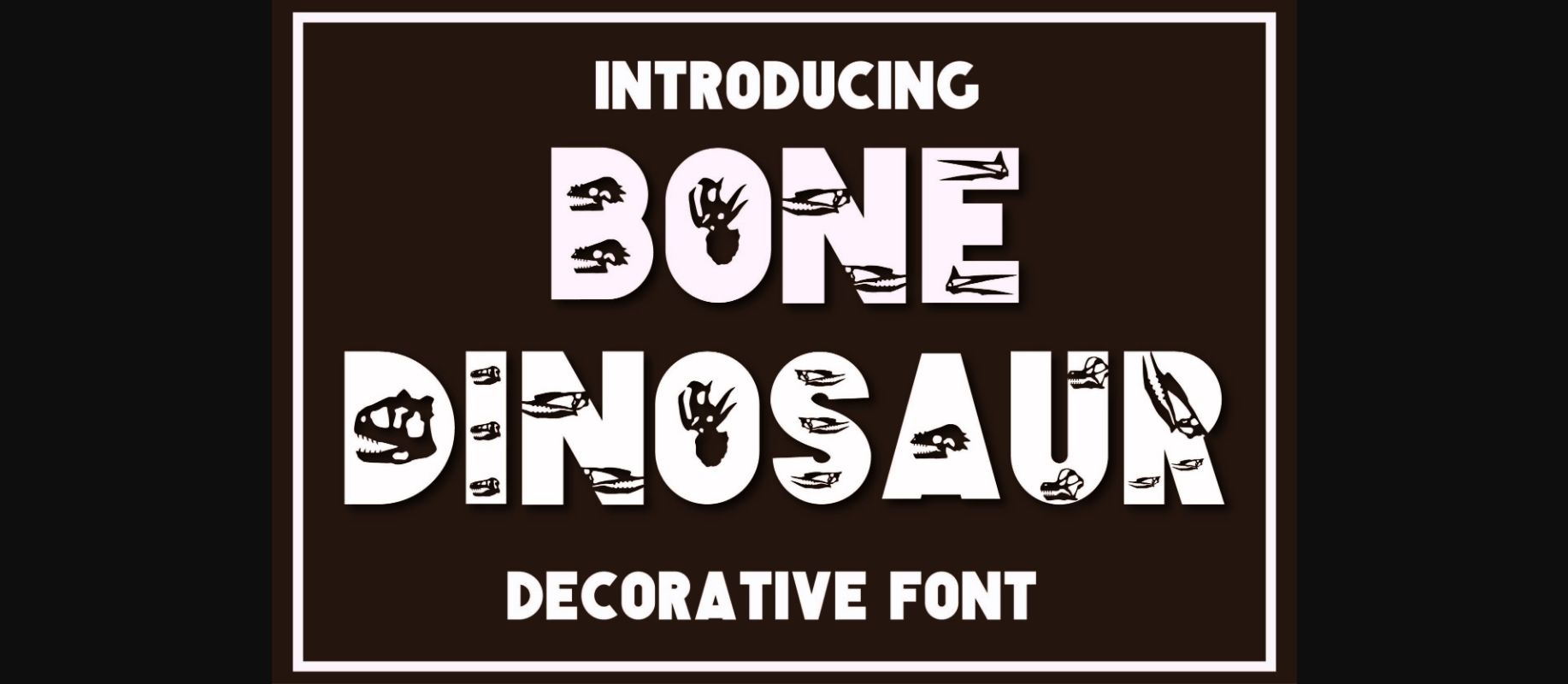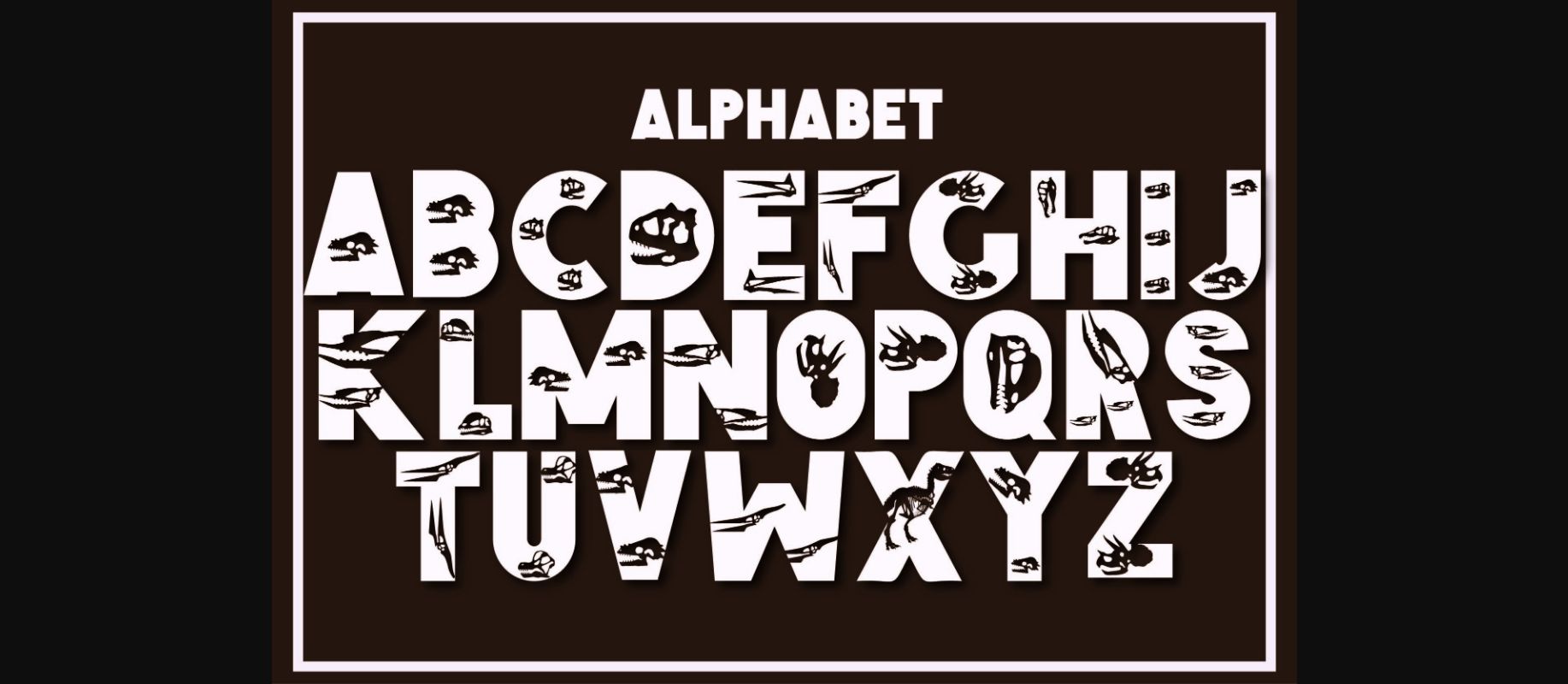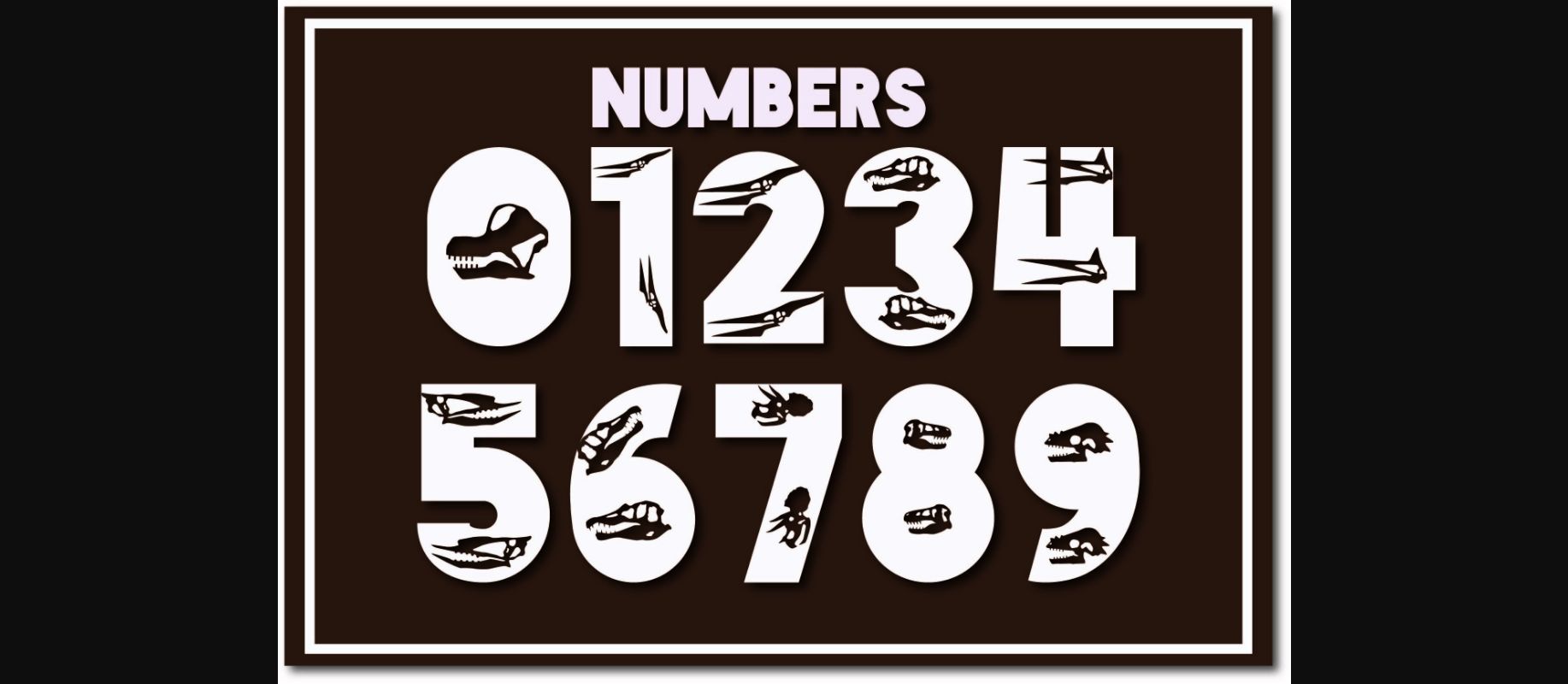
Bone Dinosaur is a fun and interesting decorative font with a unique, Jurassic vibe. Inspired by a bold bone letter type, this font will be suitable for all your dinosaur-themed projects.